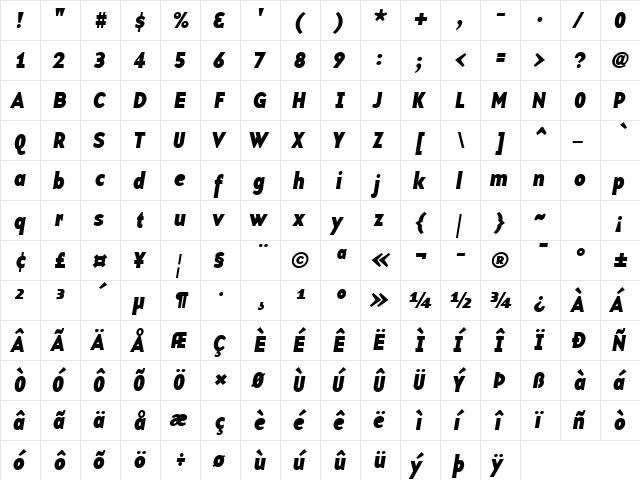
BaseTwelveSans, Bold Italic BaseTwelveSans, Bold Italic
BaseTwelveSans, Bold Italic
Design Context for BaseTwelveSans, Bold Italic Typeface
BaseTwelveSans, Bold Italic is a composed and adaptable typeface that performs quietly and consistently across a wide range of design contexts. The slanted form adds forward momentum and visual energy. The heavy weight commands attention and anchors typographic hierarchies.